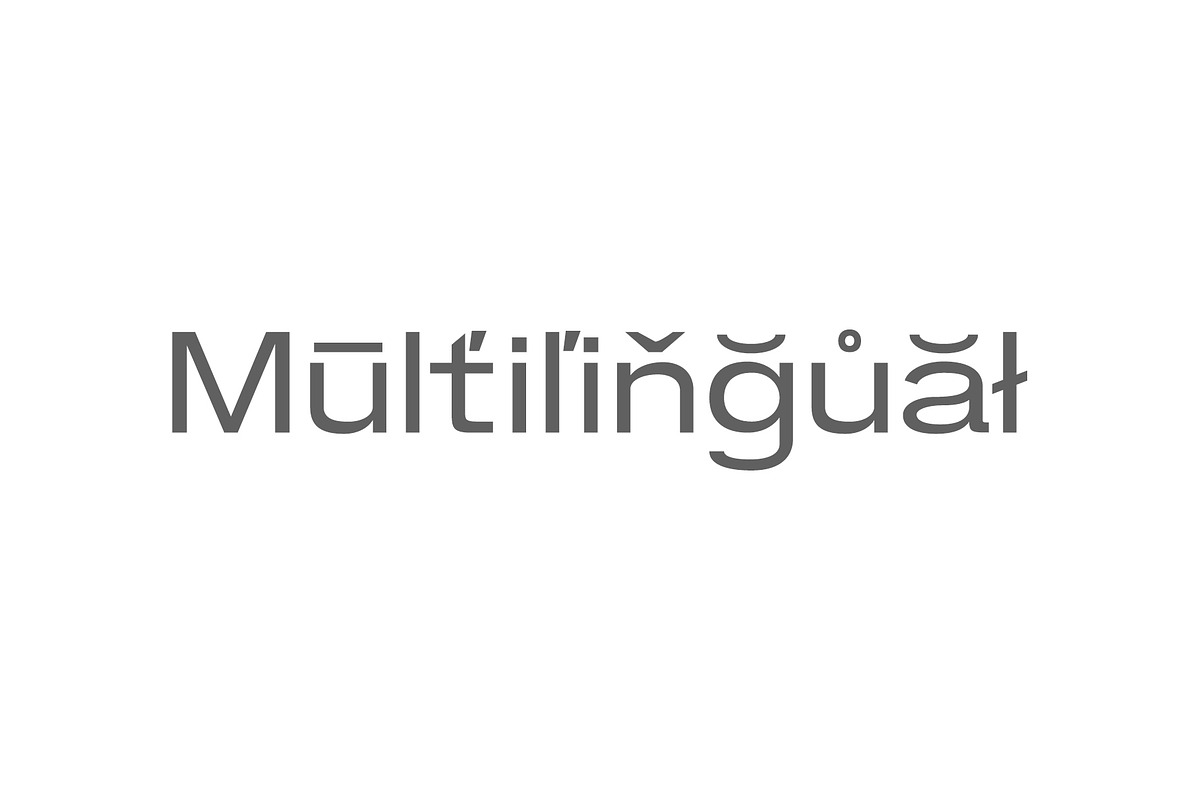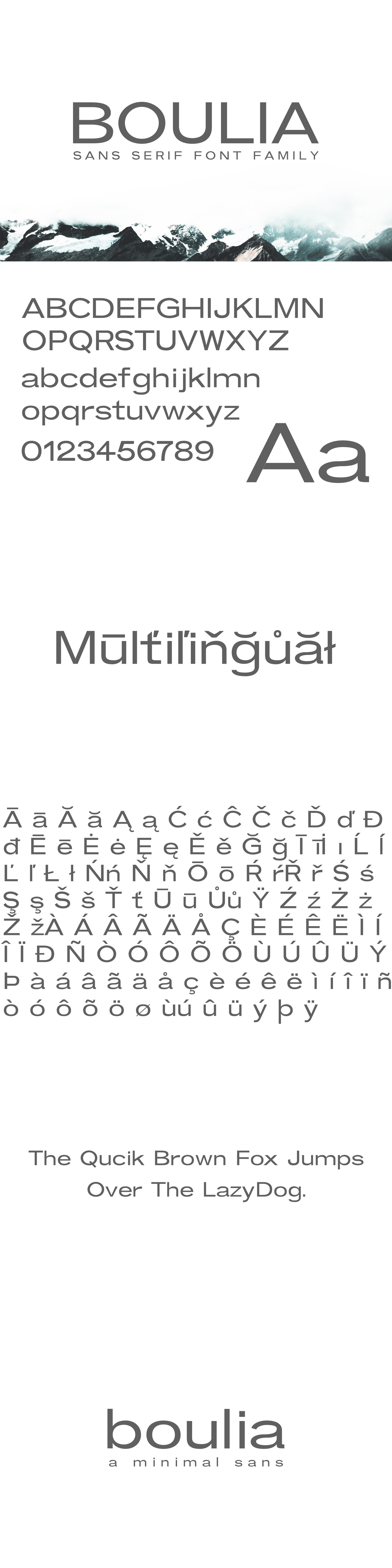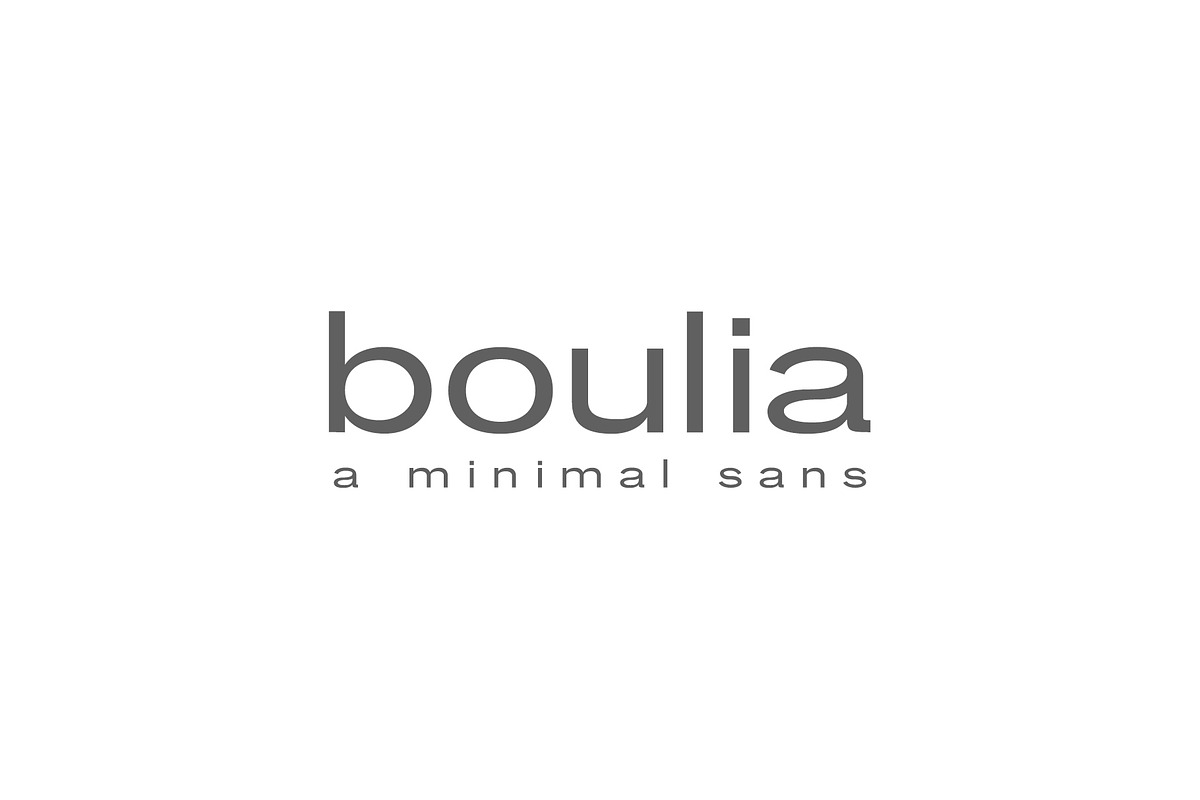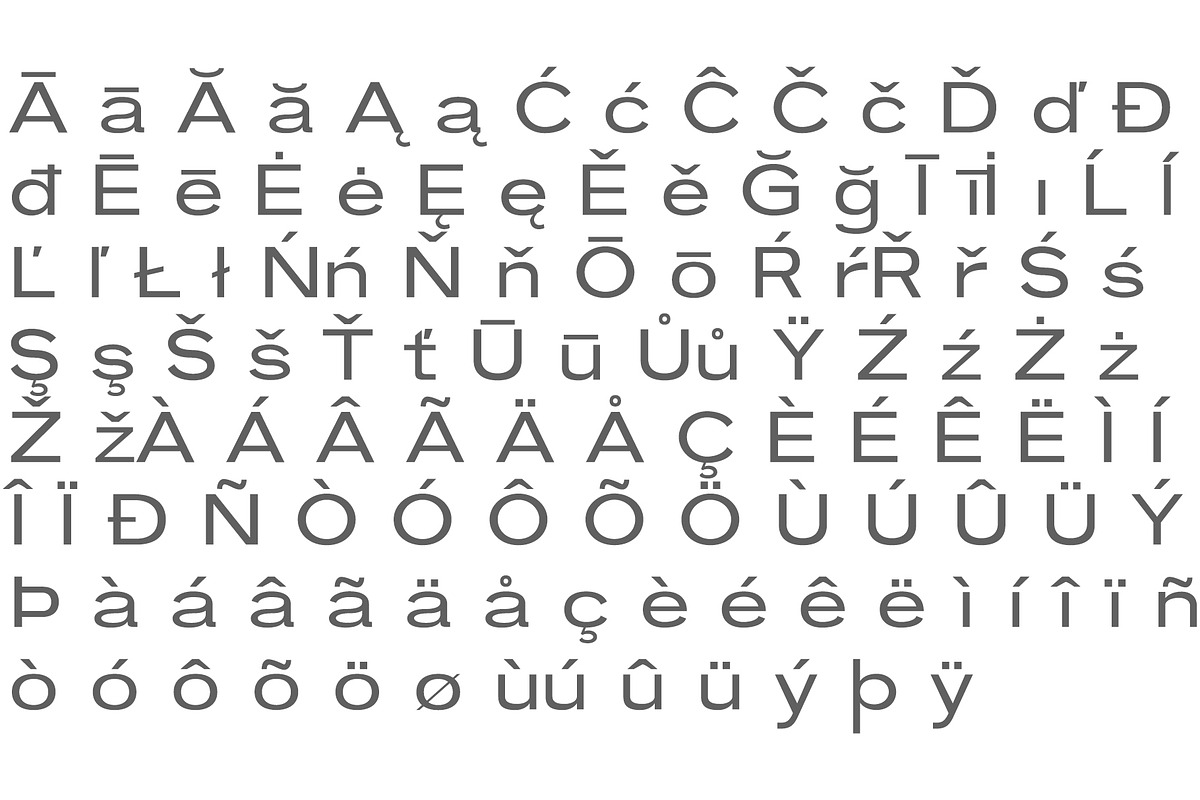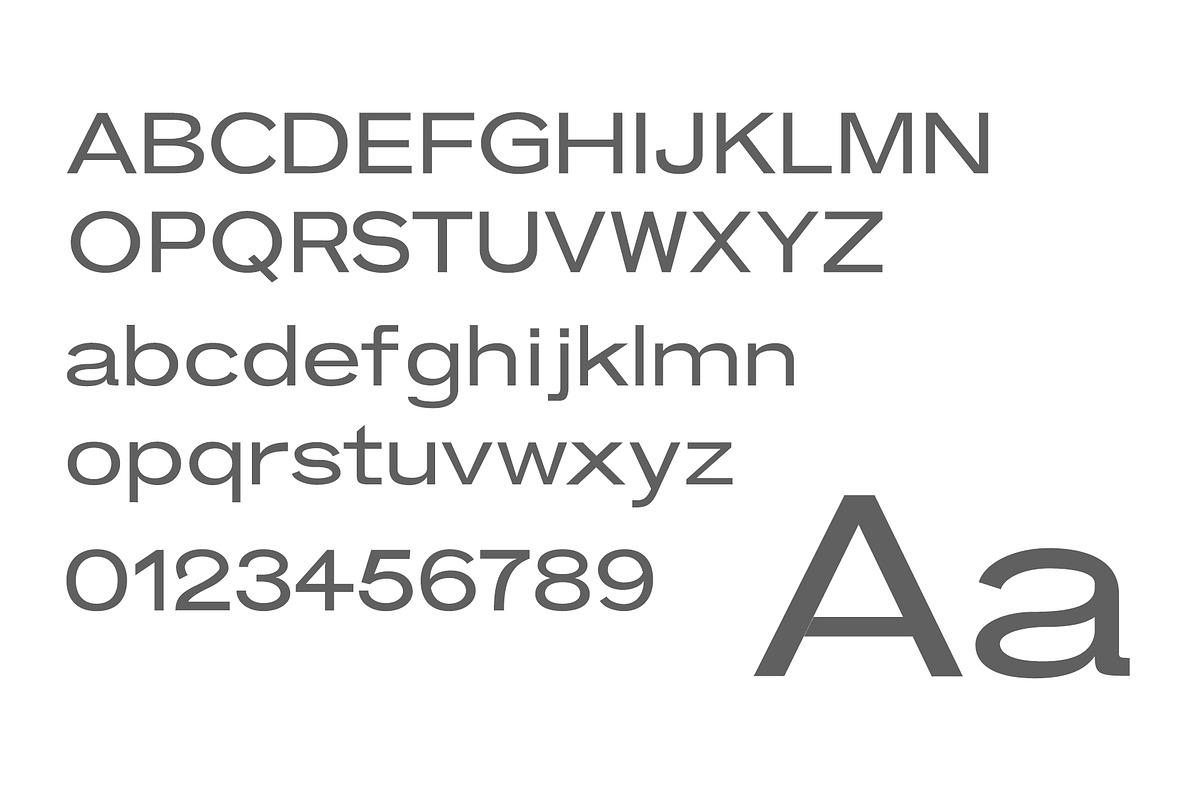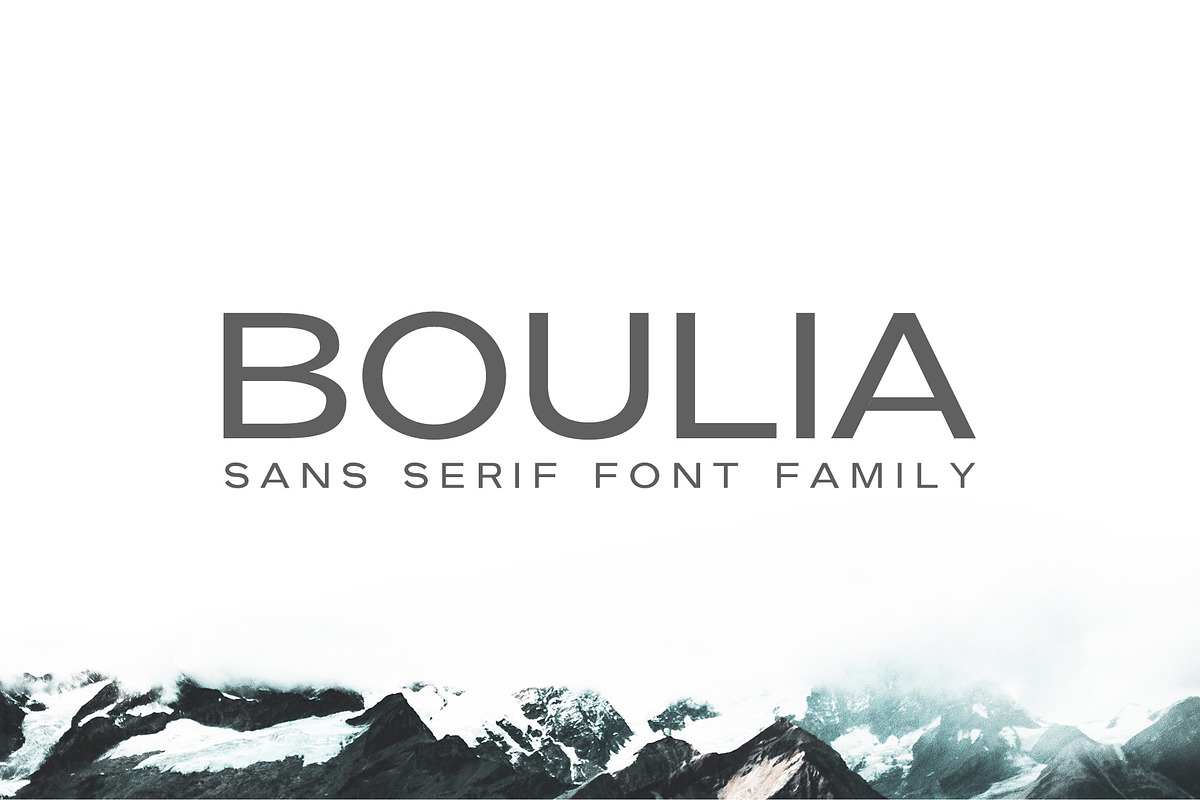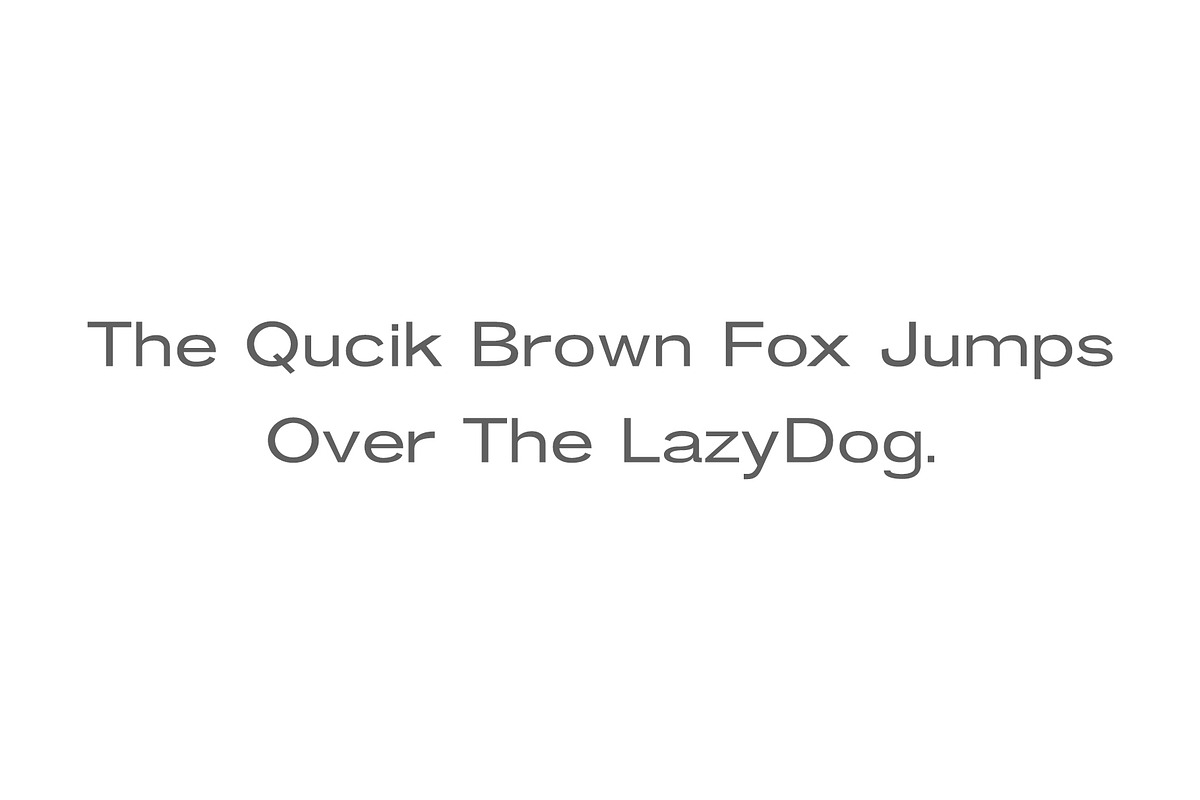
Boulia Sans Serif Font Family
Boulia Sans Serif Font Family is a minimalist sans serif font family that looks stunning in every context. It comes with 6 weights. It's perfect for magazine, logos, invitations, texts, presentations, posters, notices, titles, name card, web layouts, headers, branding, weddings, social media, product design, stationery and advertising, and other any business related.
- Font Weight: Regular, Thin, Light, Round, Distorted, and Bold
- Uppercase Letters
- Lowercase Letters
- Number and Punctuation